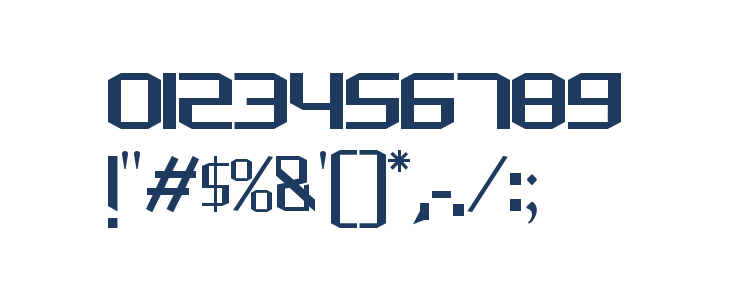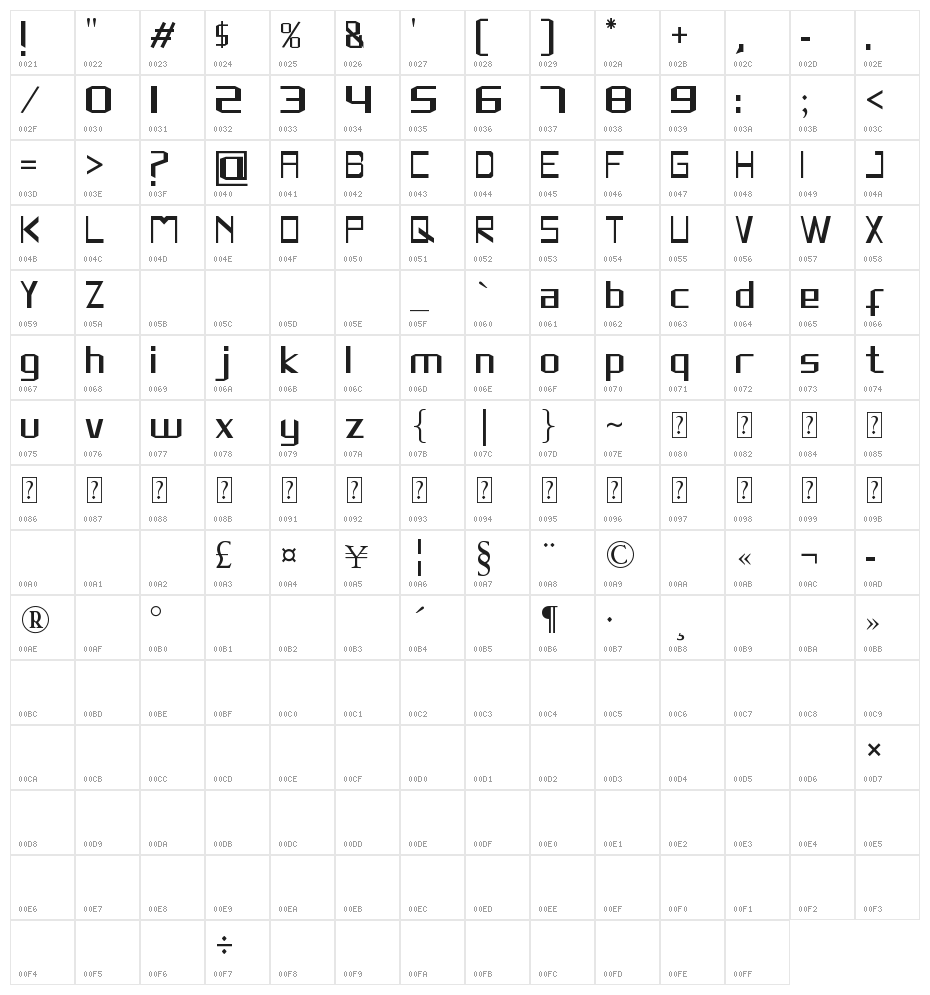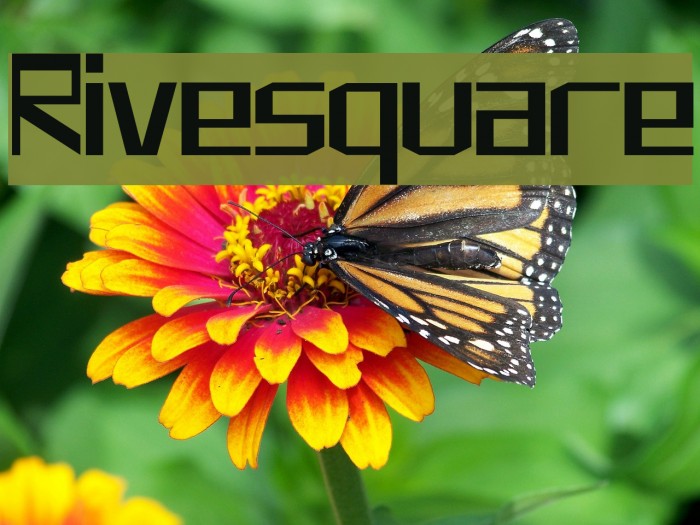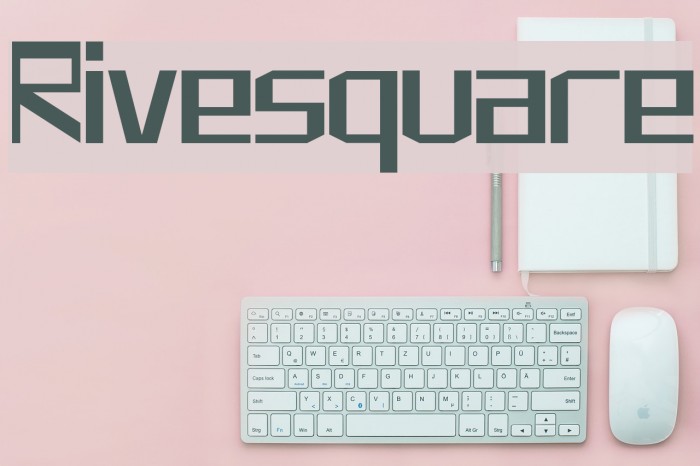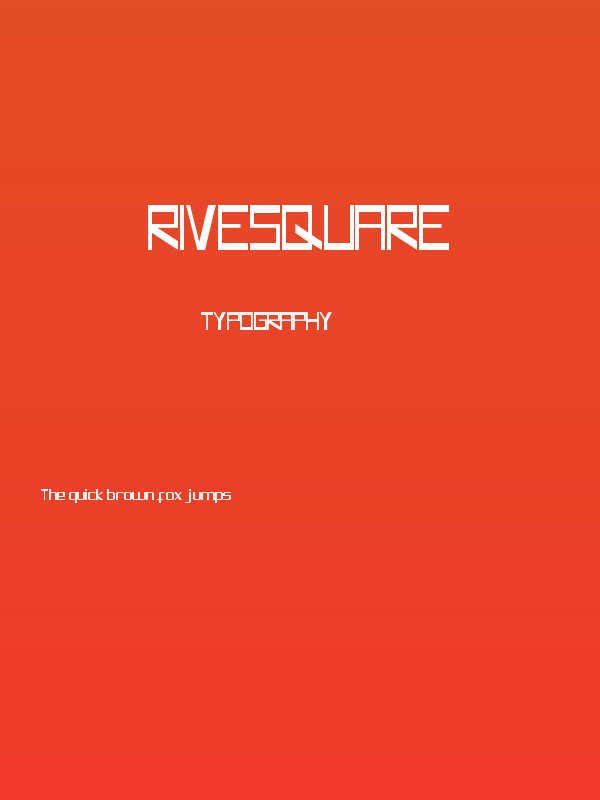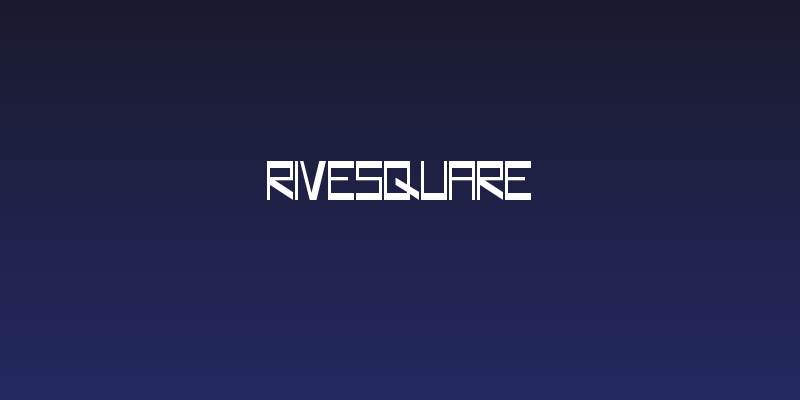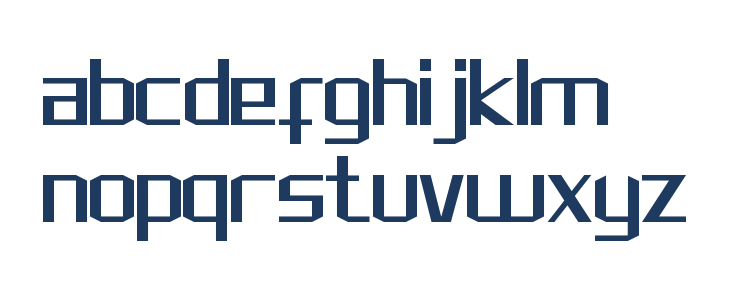
Rivesquare Font
Rivesquare Description
This font features a geometric, angular design with a modern and futuristic aesthetic. The characters are constructed with straight lines and sharp angles, giving it a distinct, edgy appearance. The uppercase and lowercase letters maintain a consistent style, with a uniform height that contributes to its structured look. The numerals and special characters are designed to match the overall angular theme, ensuring a cohesive appearance across all glyphs. This font's unique style makes it stand out, perfect for projects that require a bold and modern touch.
| Proposed Projects | Ideal for technology branding, sci-fi posters, video game titles, and modern art projects. |